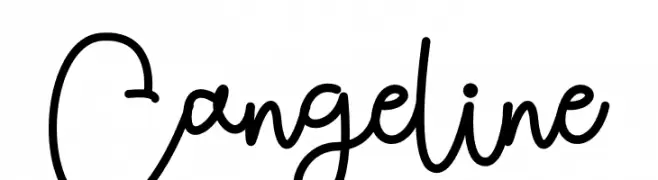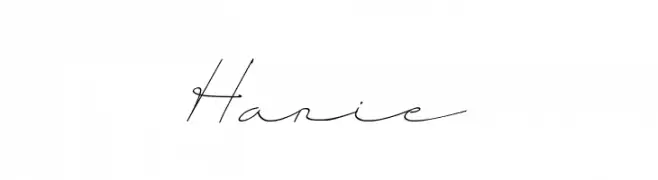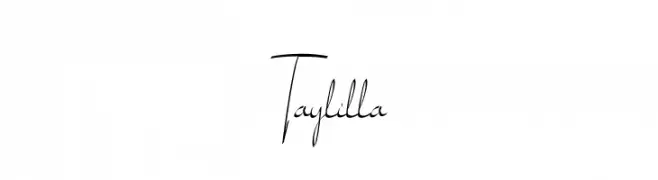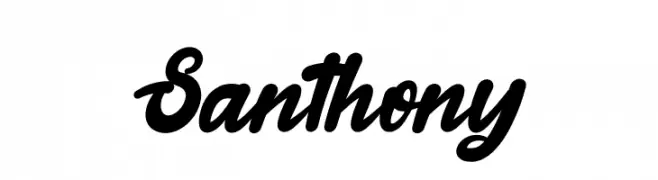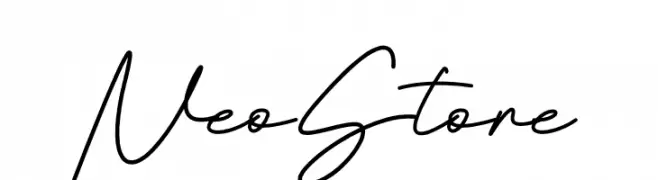
A playful, flowing script font with elegant loops and a handwritten quality.
An elegant, flowing script font with a natural handwriting style.
An elegant, flowing script font with thin, delicate lines and graceful curves.
A playful, hand-drawn font with a sketch-like, textured appearance.
A fluid and elegant handwritten font with dynamic, flowing letterforms.
An elegant script font with flowing swashes and intricate details.
A playful and whimsical font with unique looped elements and artistic flair.
A graceful, cursive script font with elegant, flowing strokes.
A bold, cursive font with dynamic and playful strokes.
A fluid and elegant cursive font with a handwritten style.